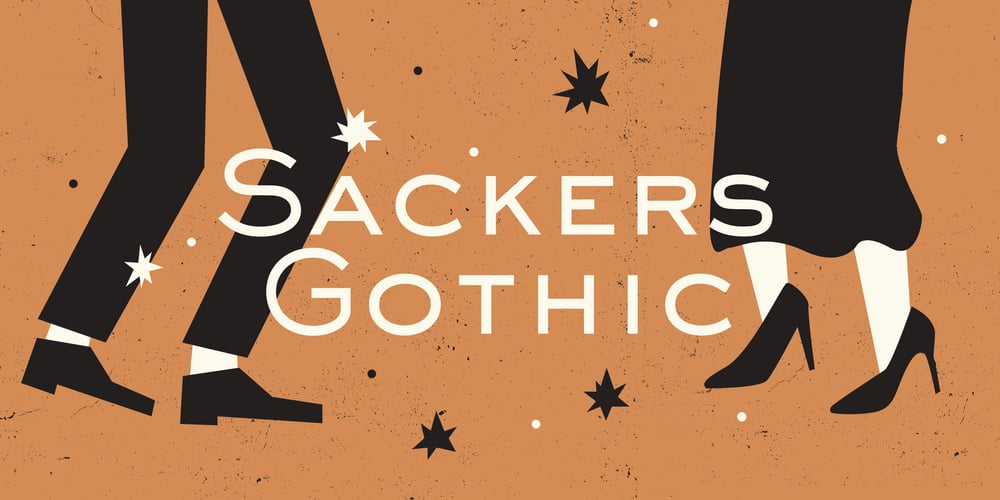
Sackers Gothic Font Family was designed by Monotype Design Studio and published by Monotype. Sackers Gothic contains 3 styles and family package options. Sackers Gothic is part of the larger Sackers series, a collection of fonts drawn from templates for producing engraved stationery and social cards by Gary Sackers, a Charlotte, North Carolina intaglio printer. Many typefaces were made from similar sources, including Monotype’s Engravers series, as well as Jim Spiece’s ITC Blair, and Mark van Bronkhorst’s Sweet Sans. Sackers’ typefaces, which were initially made into photo-set type, were digitized by Compugraphic and released in the late 1980s. Sackers Gothic has since become a popular choice for conveying sincere and plainspoken language on dust jackets, posters, and of course, in stationery. The face pairs well with display faces of a disparate nature, and serves as a ready foil for anything requiring an air of typographic sophistication.